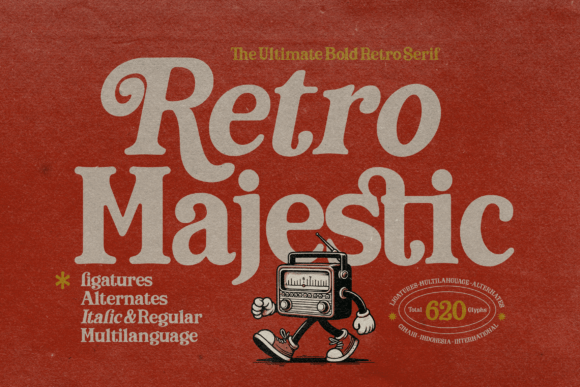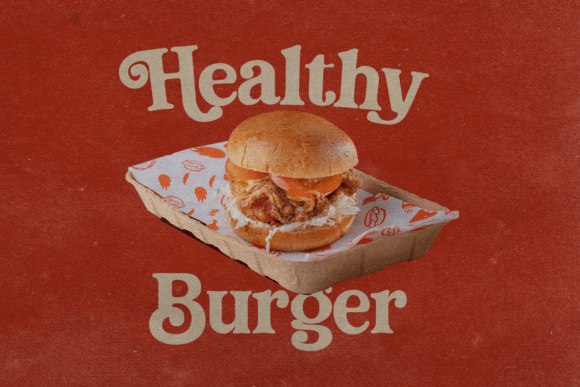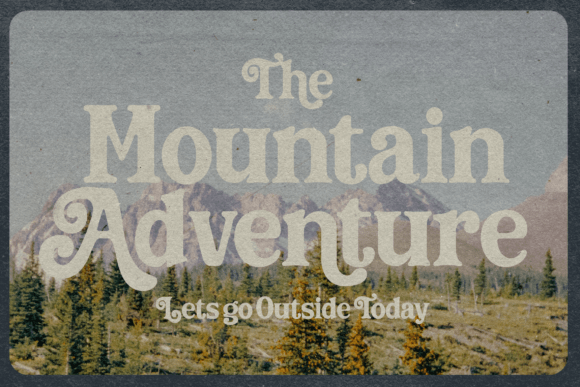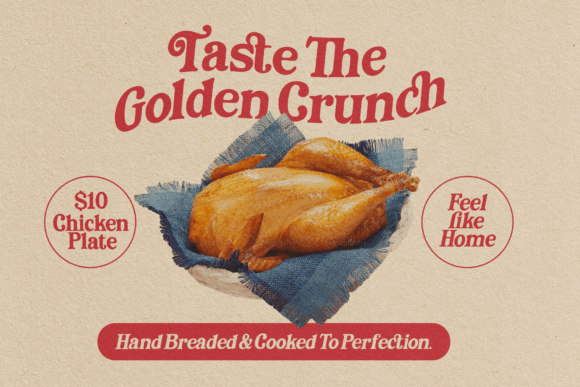
Retro Majestic Font: Bold Serif for Timeless Branding Designs
About the Retro Majestic Font
Presenting Retro Majestic Font, a unique and stylish typeface that will make your work stand out. Introducing Retro Majestic , a retro-inspired serif font designed for eye-catching advertising, bold headlines, and timeless branding. With its thick, elegant letterforms and subtle curves, this typeface blends mid-century charm with modern versatility, making it perfect for posters, packaging, logos, and editorial design.
Featuring high-contrast strokes, smooth edges, and stylish retro flair, retro majestic evokes the golden era of advertising while maintaining flawless readability. Whether you’re crafting a classic luxury ad, a nostalgic brand identity, or a bold print campaign, this font delivers impact and sophistication in every letter.
Retro Majestic Font Usage Examples
Retro Majestic Font Example